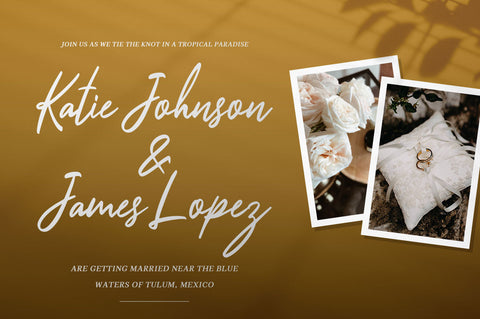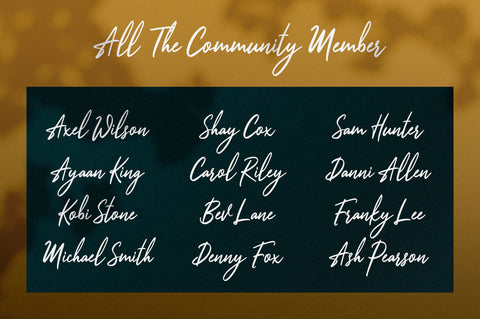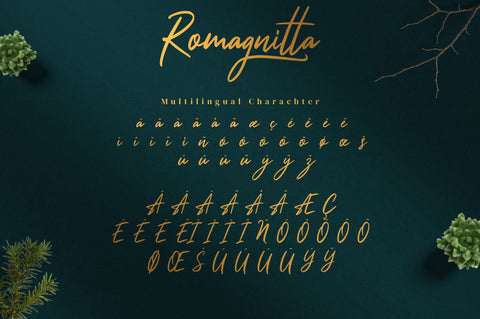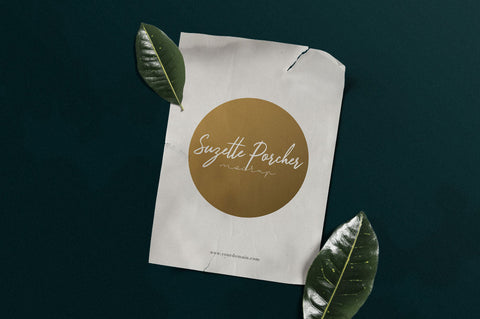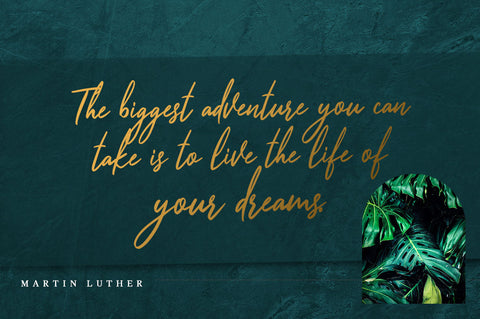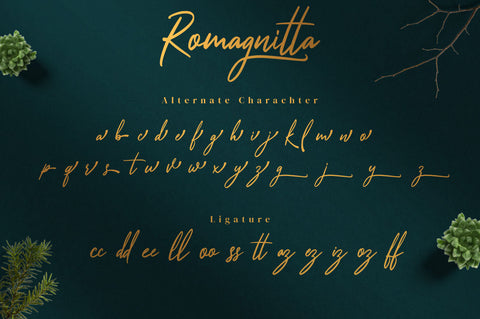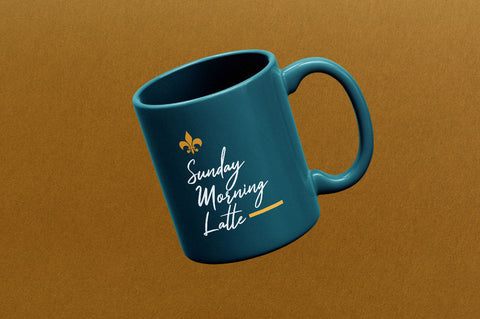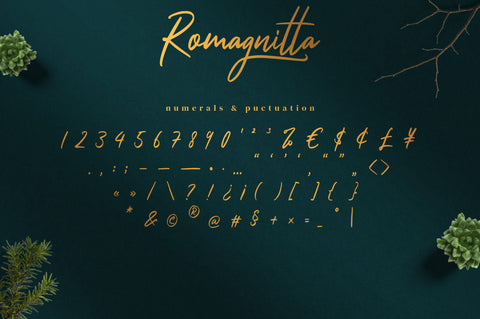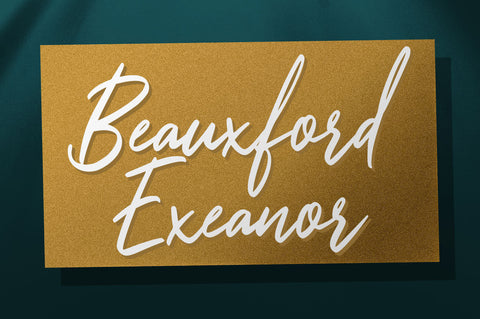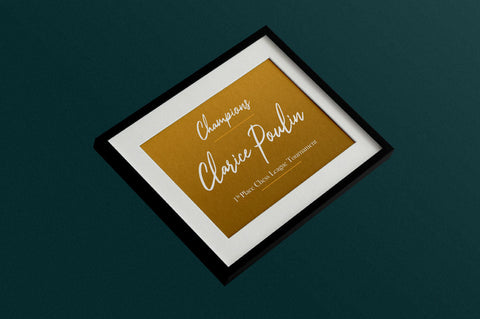
Romagnitta - Signature Font
Romagnitta is a signature font that lets you achieve a handwritten feeling. Get inspired by its classic style. Perfect for branding, signature, writting, watermark, business card, clothing, magazine, web, and any other design projects.